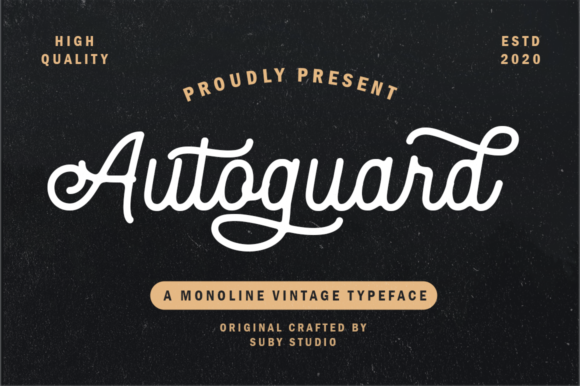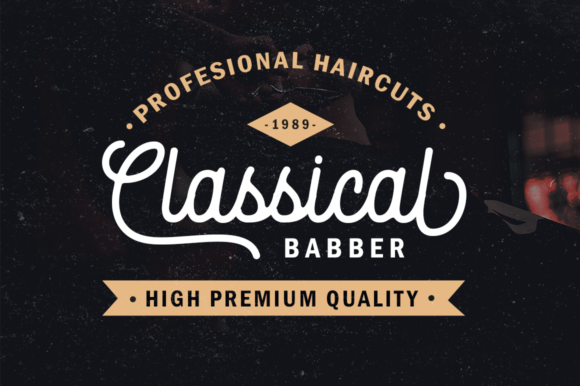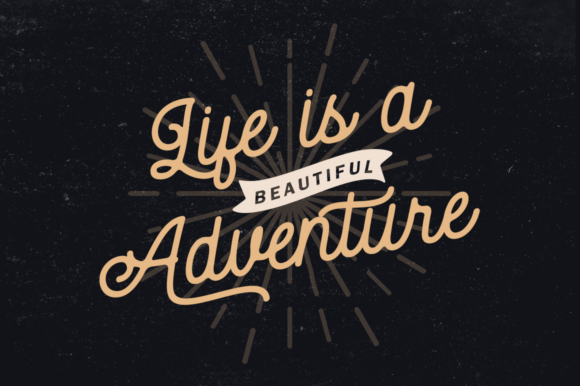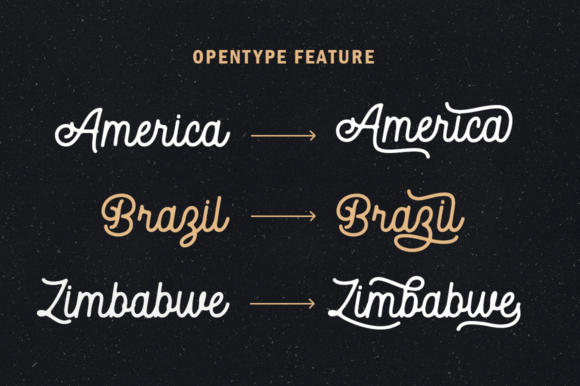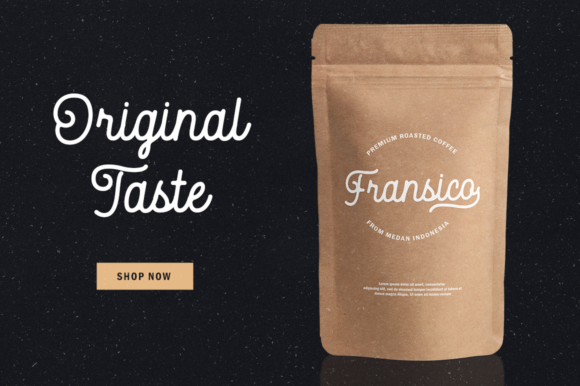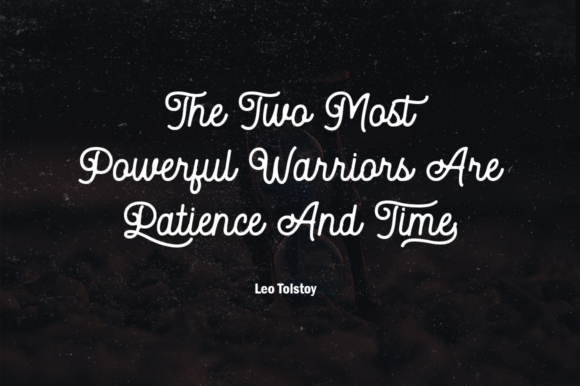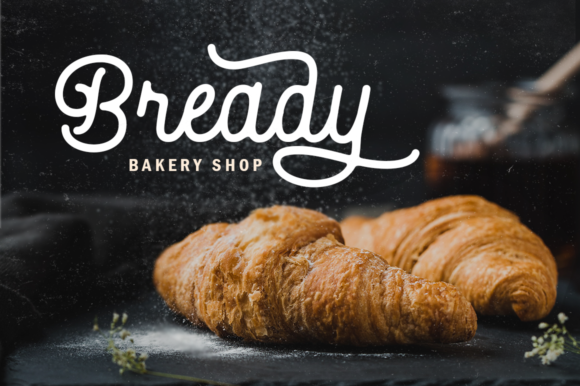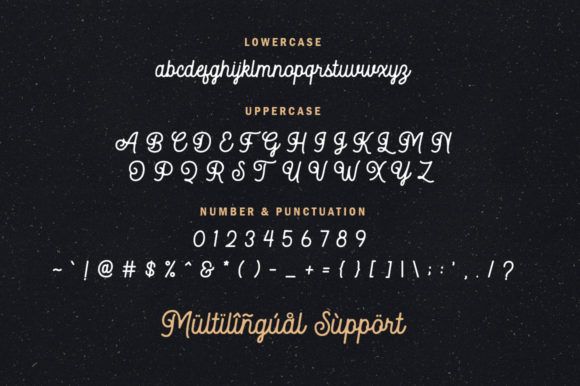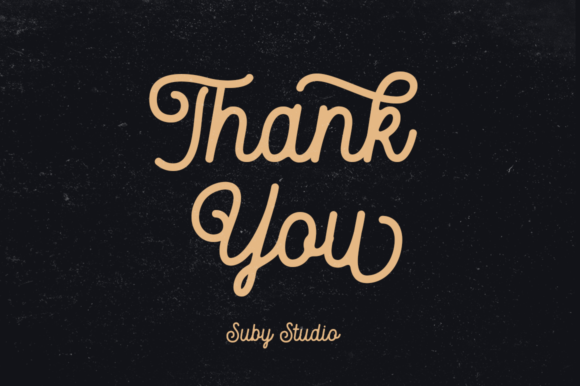
Autoguard Font
About Autoguard Font
Autoguard feels playfully nostalgic and delivers an incredible vintage aesthetic. Use this handwritten font to add that special retro touch to any design idea you can think of!